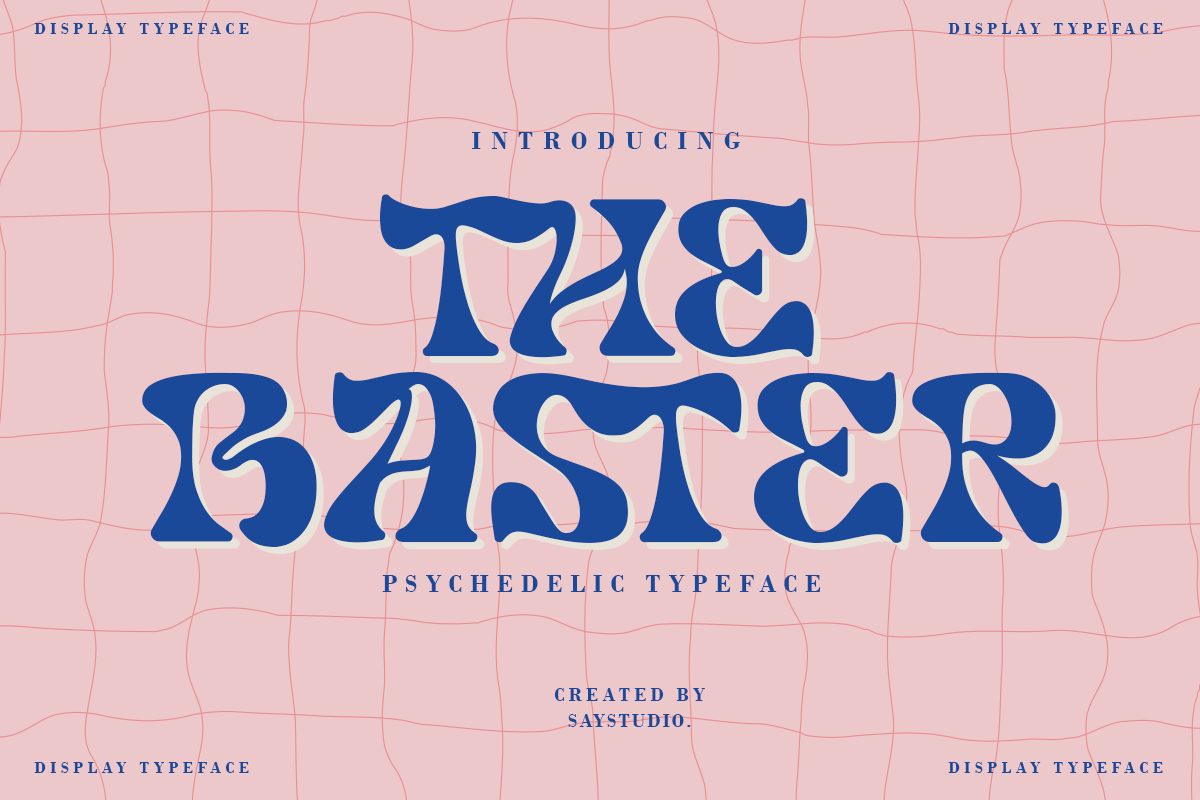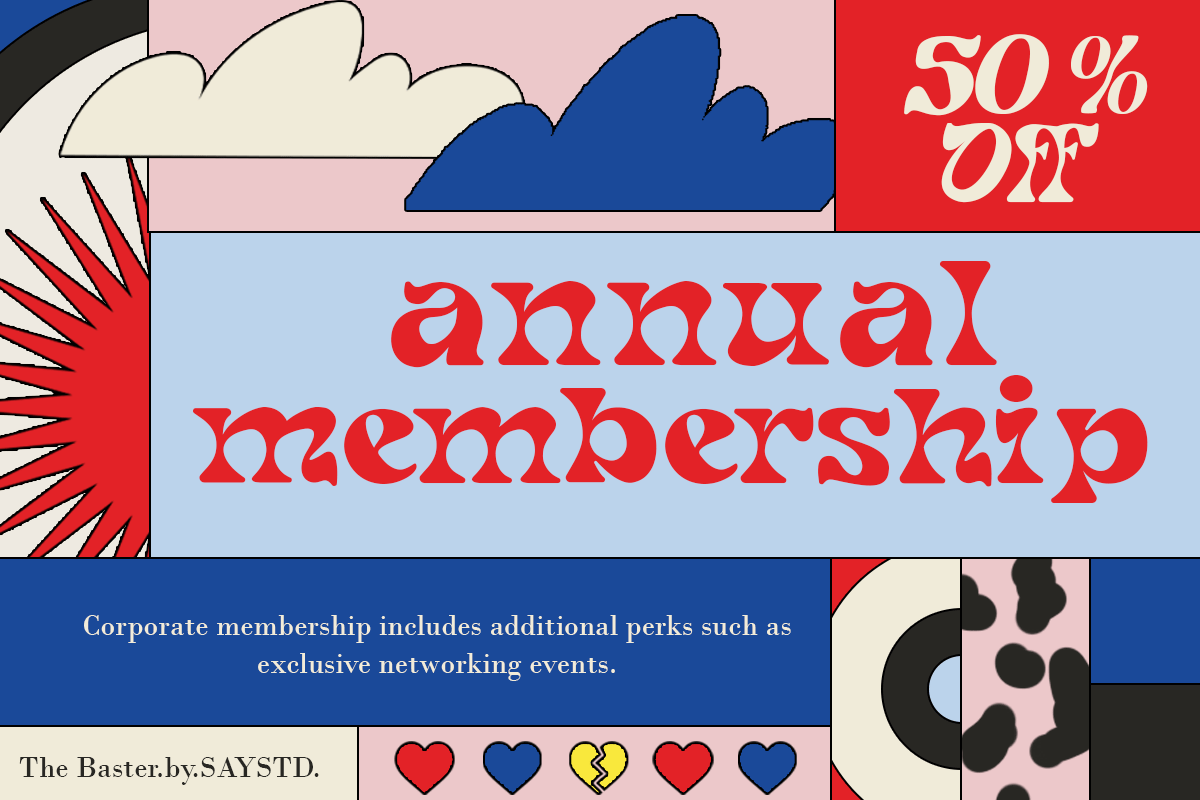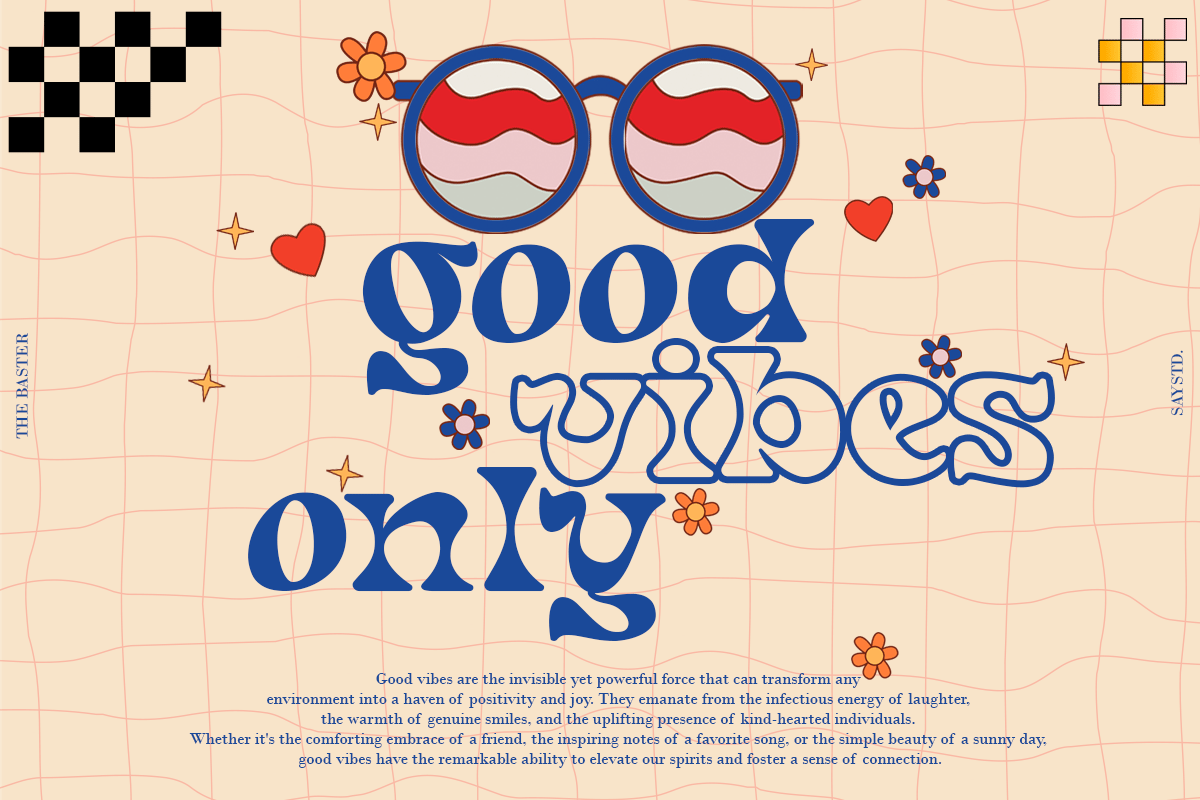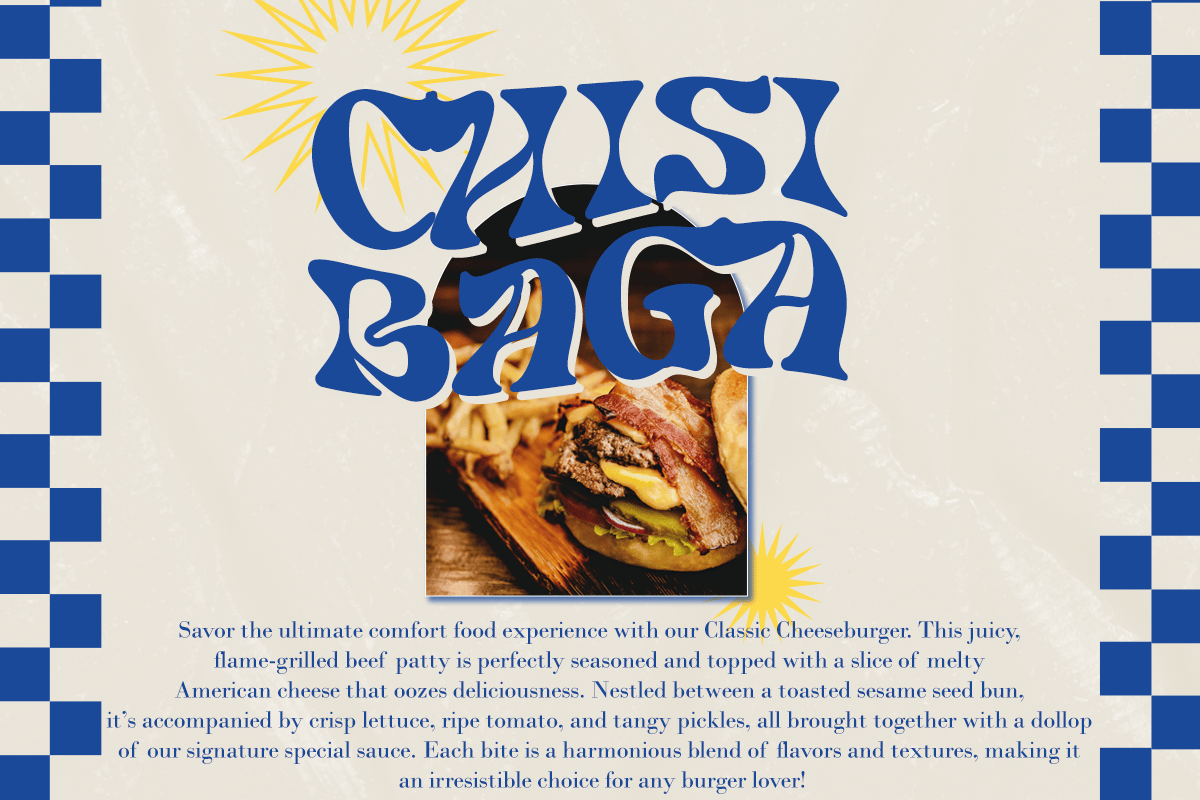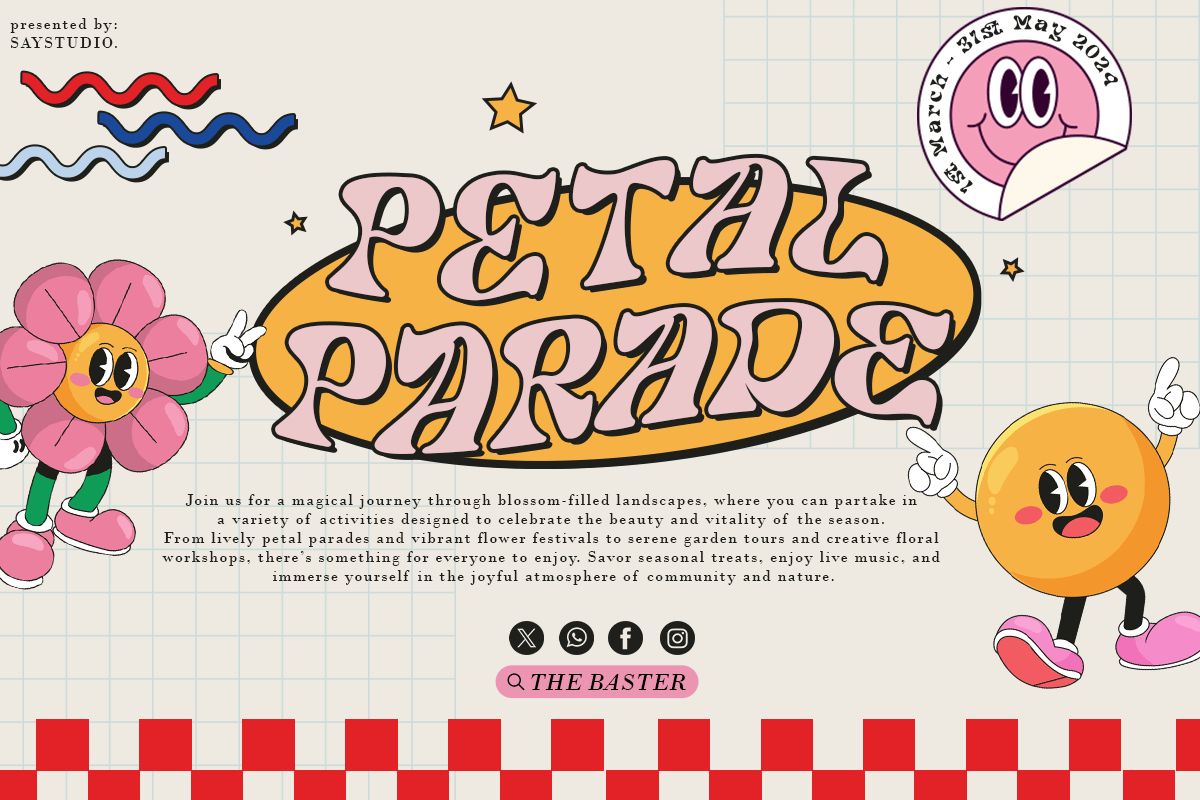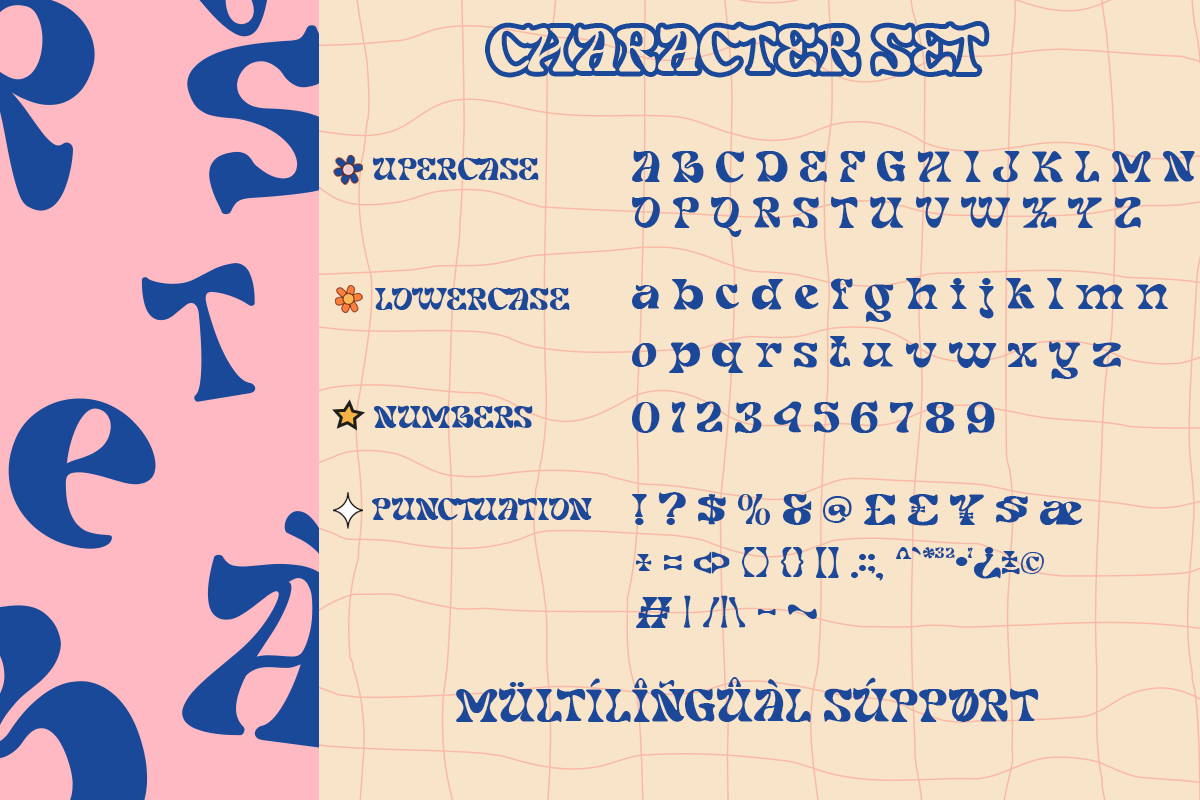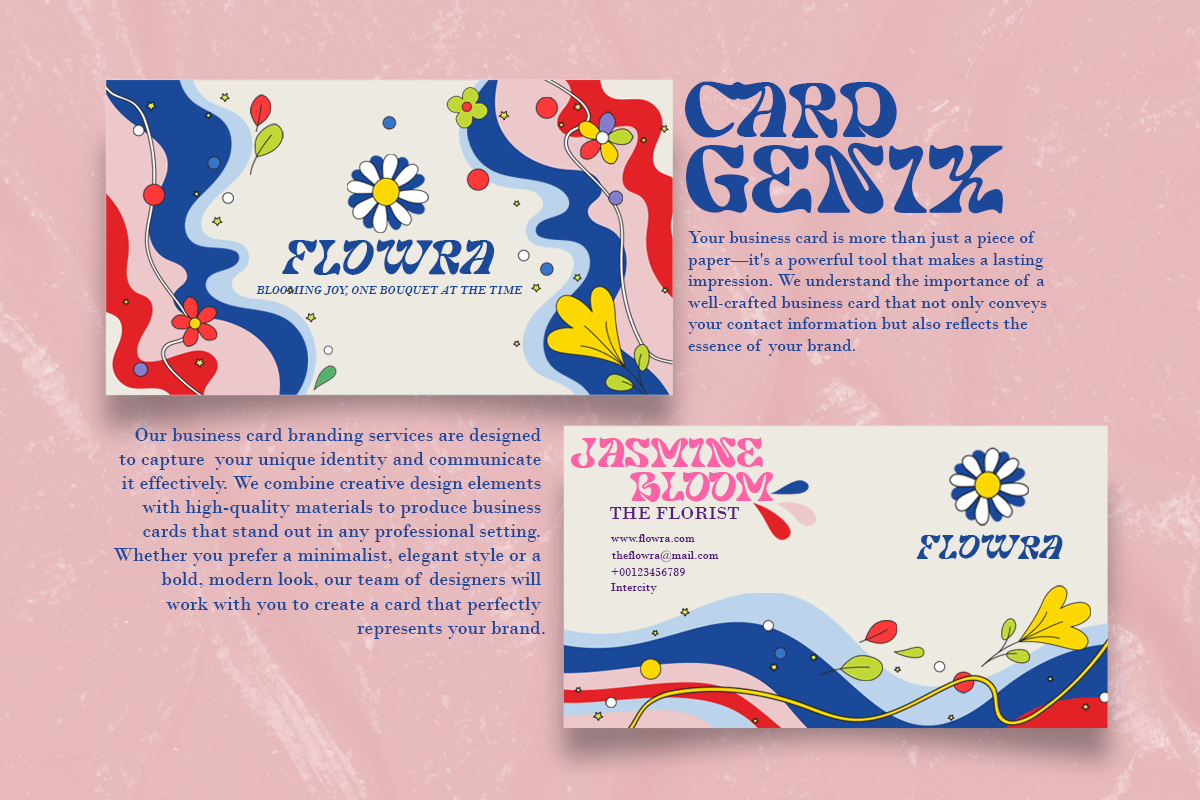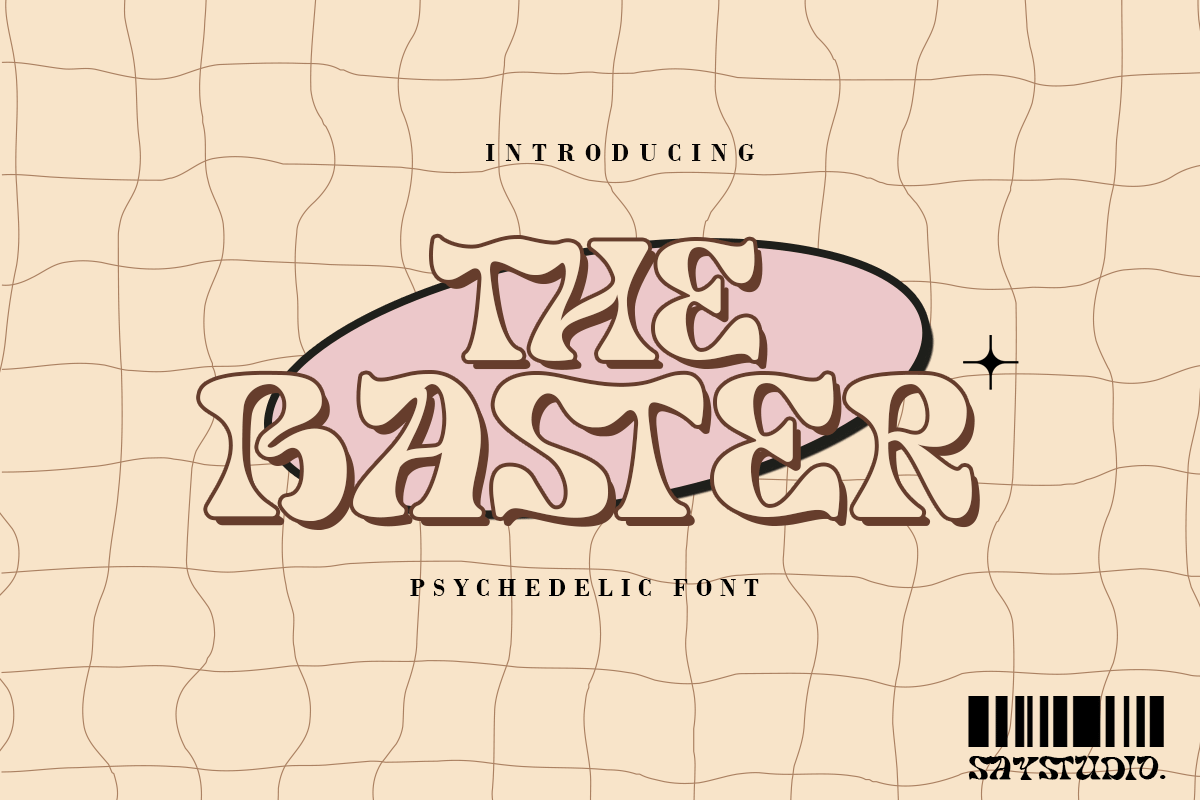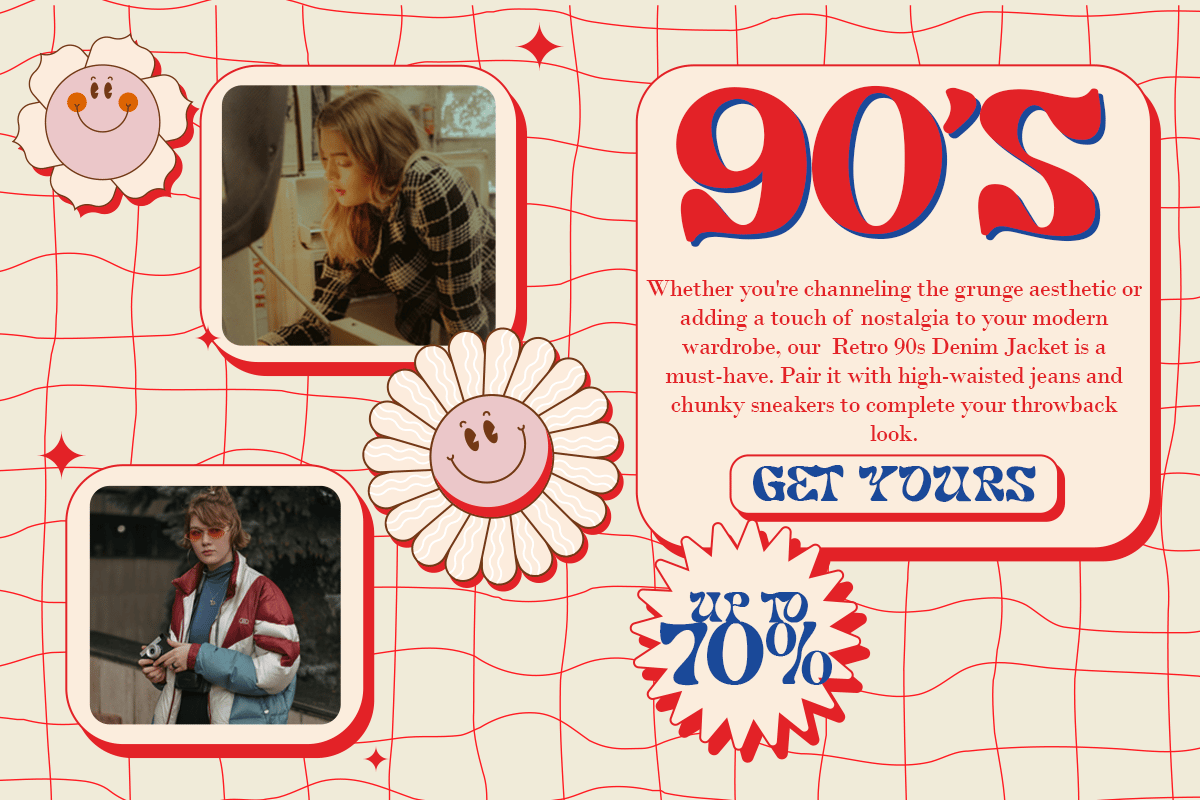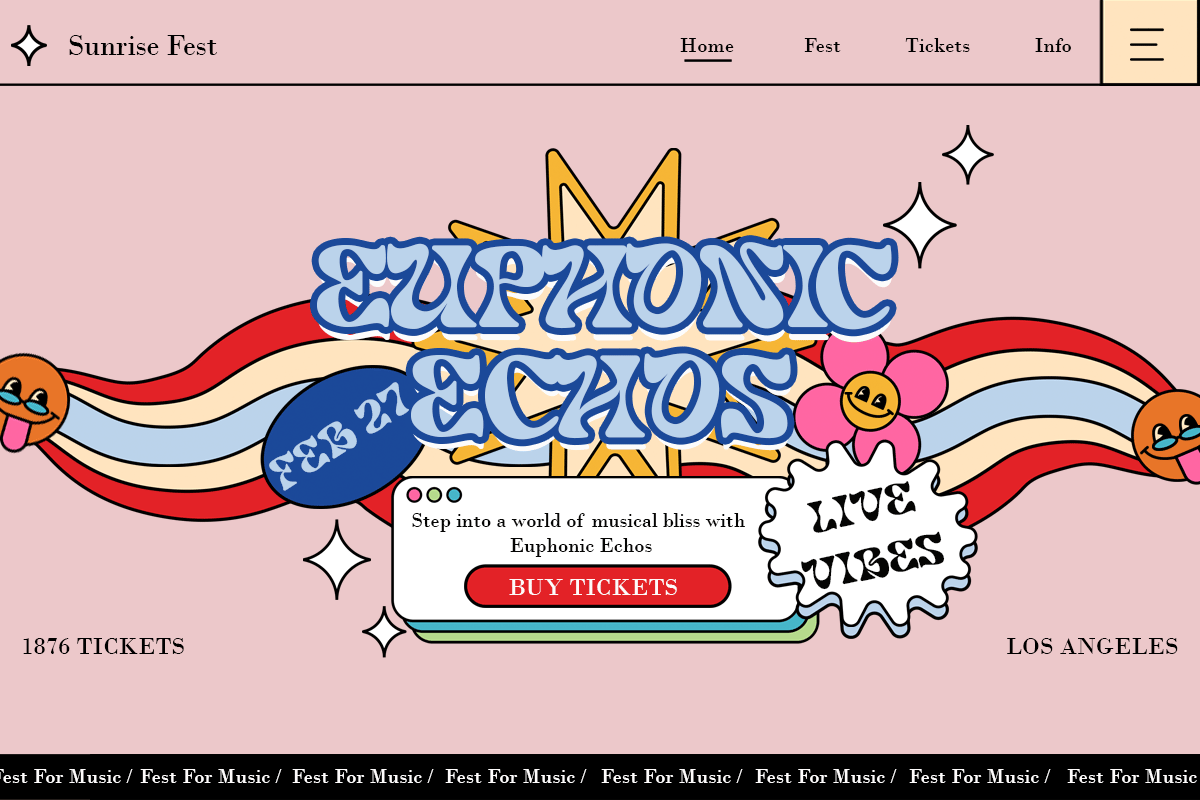
The Baster – Modern Psychedelic Font
The Baster Display is a contemporary font with lots of psychedelic retro Its mesmerizing swirls and curves will transport you to the heart of the psychedelic revolution and adds an authentic touch of nostalgia to your projects, effortlessly embodying the essence of the retro era.
The Baster Display has three types of fonts, namely regular, and italic style.
The Baster is very suitable when used for logo designs, badges, web layouts, headers, packaging and many others.
- 2 styles: Regular and Italic
- Unique letterforms